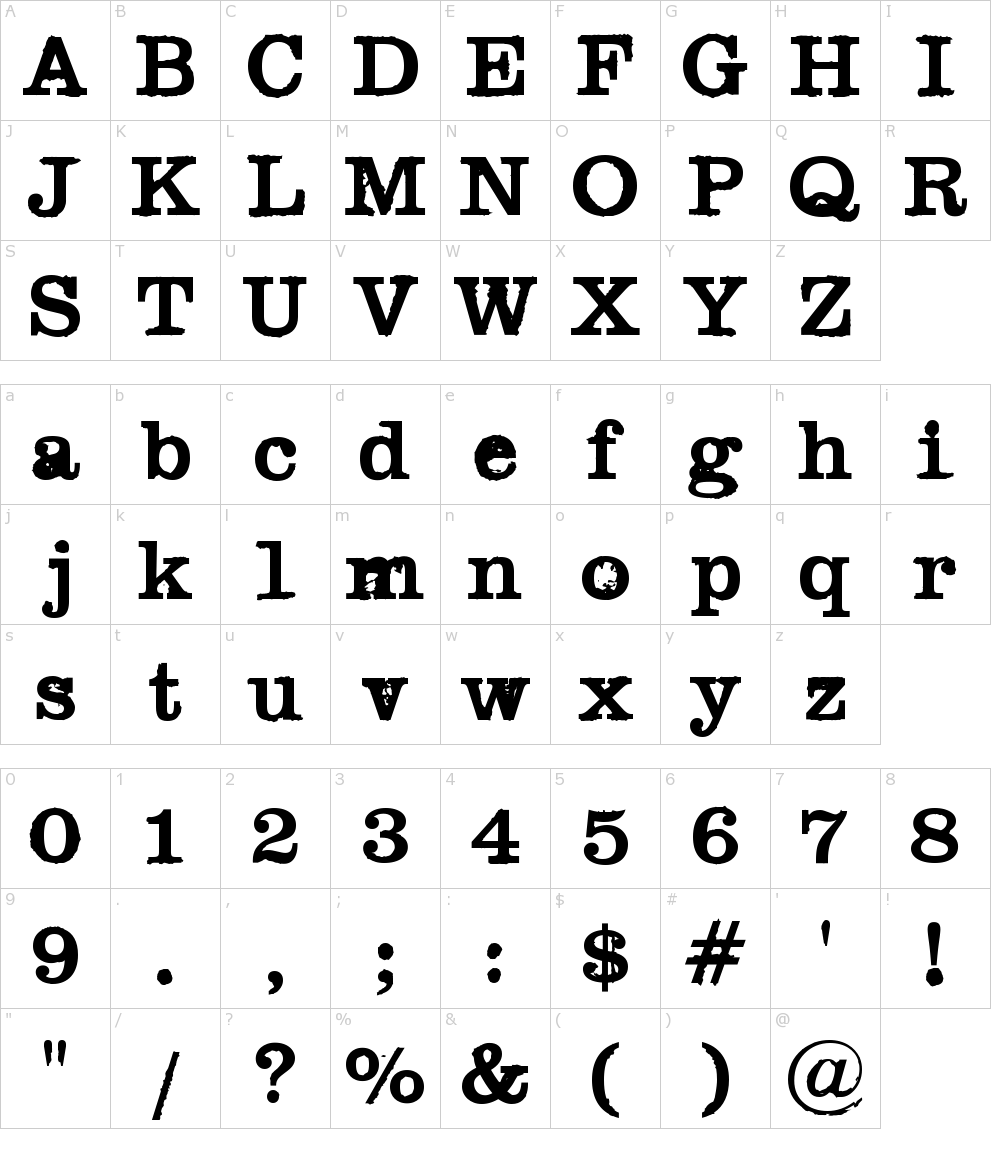
Black Widow Font Download. The fonts in use section features posts about fonts used in logos, films, tv shows, video games, books and more; Examples and download link for the black widow font designed by stuart sandler in 2001.
The black widow logo font movie is highlighted in white stains showing the strength of the character in the posters from the beginning. Black widow , font diner , distorted eroded , blackwidow.ttf , read me.pdf , windows font characters sample Download black widow movie font (1 styles).
Black widow via font diner, it’s a flowery, distorted truetype font. In fancy > horror 305,532 downloads (12 yesterday) 2 comments donationware. Download black widow font with regular style.